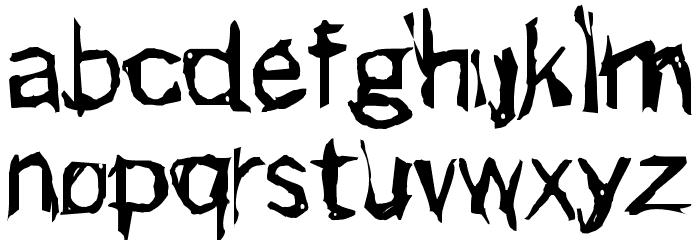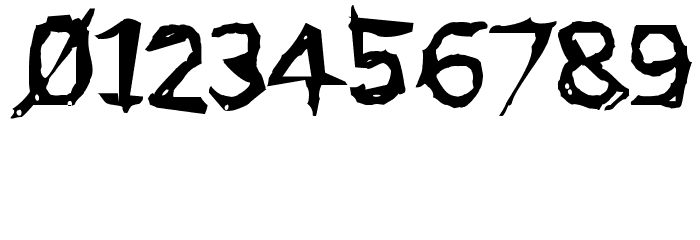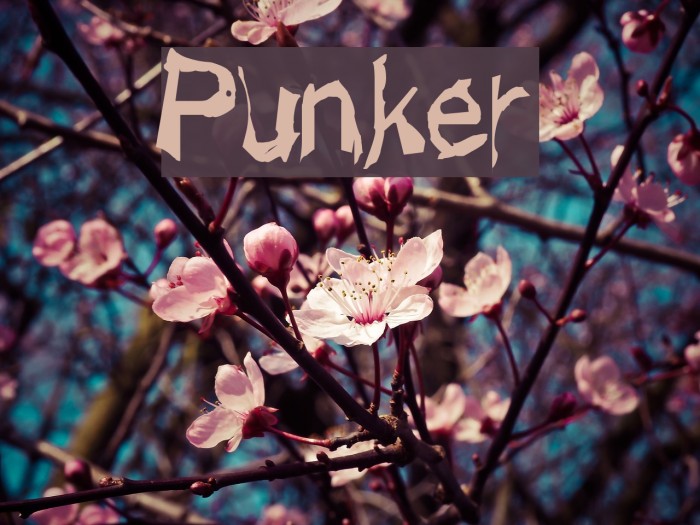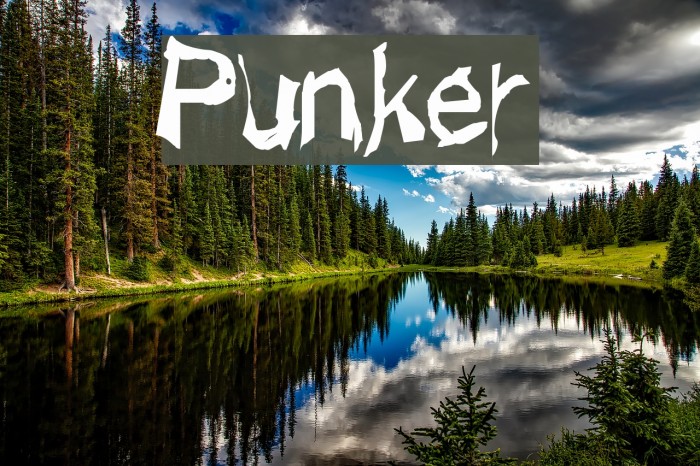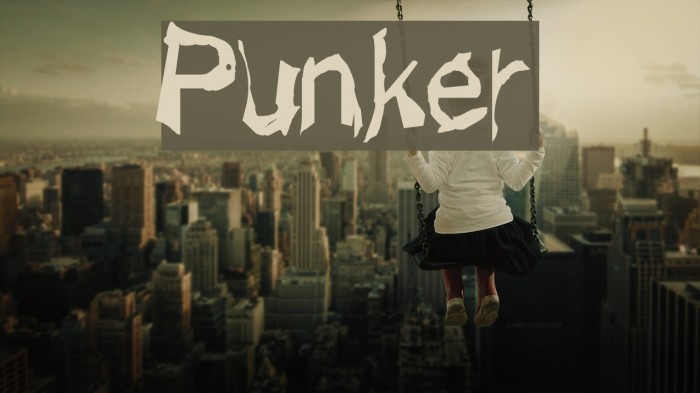
Punker Font
This font features a bold, edgy design with sharp, jagged edges and a distressed appearance. The characters are irregular and dynamic, conveying a sense of rebellion and nonconformity. The uppercase and lowercase letters maintain a consistent style, with exaggerated angles and a rough texture that adds to the chaotic aesthetic. Numbers and special characters follow the same design principles, ensuring a cohesive look throughout. This font is perfect for projects that require a strong, unconventional statement.
A bold, edgy font with jagged edges and a distressed, rebellious style.
- Proposed Projects: Ideal for punk-themed posters, album covers, graffiti art, and edgy branding projects.